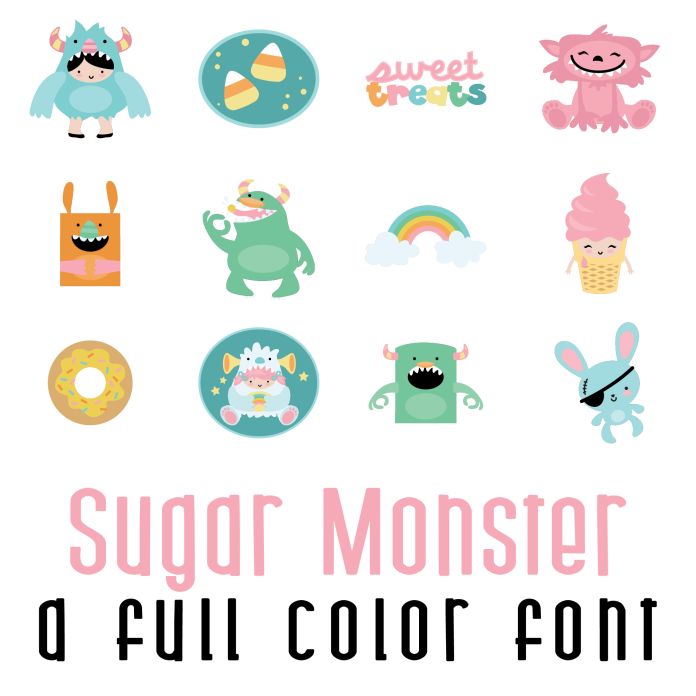
This fun full color font features 26 candy loving monsters perfect for the holiday, gifts, cards, crafts, decor, parties, classrooms, planner stickers, scrap book pages and more!. Perfect for cards, crafts, gifts, decor, scrapbook pages, planner stickers, classrooms and more!